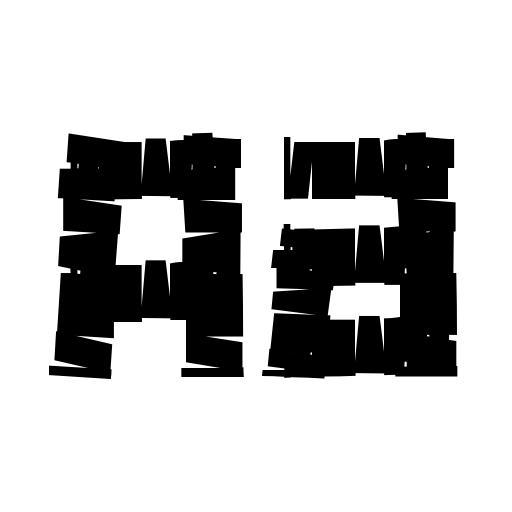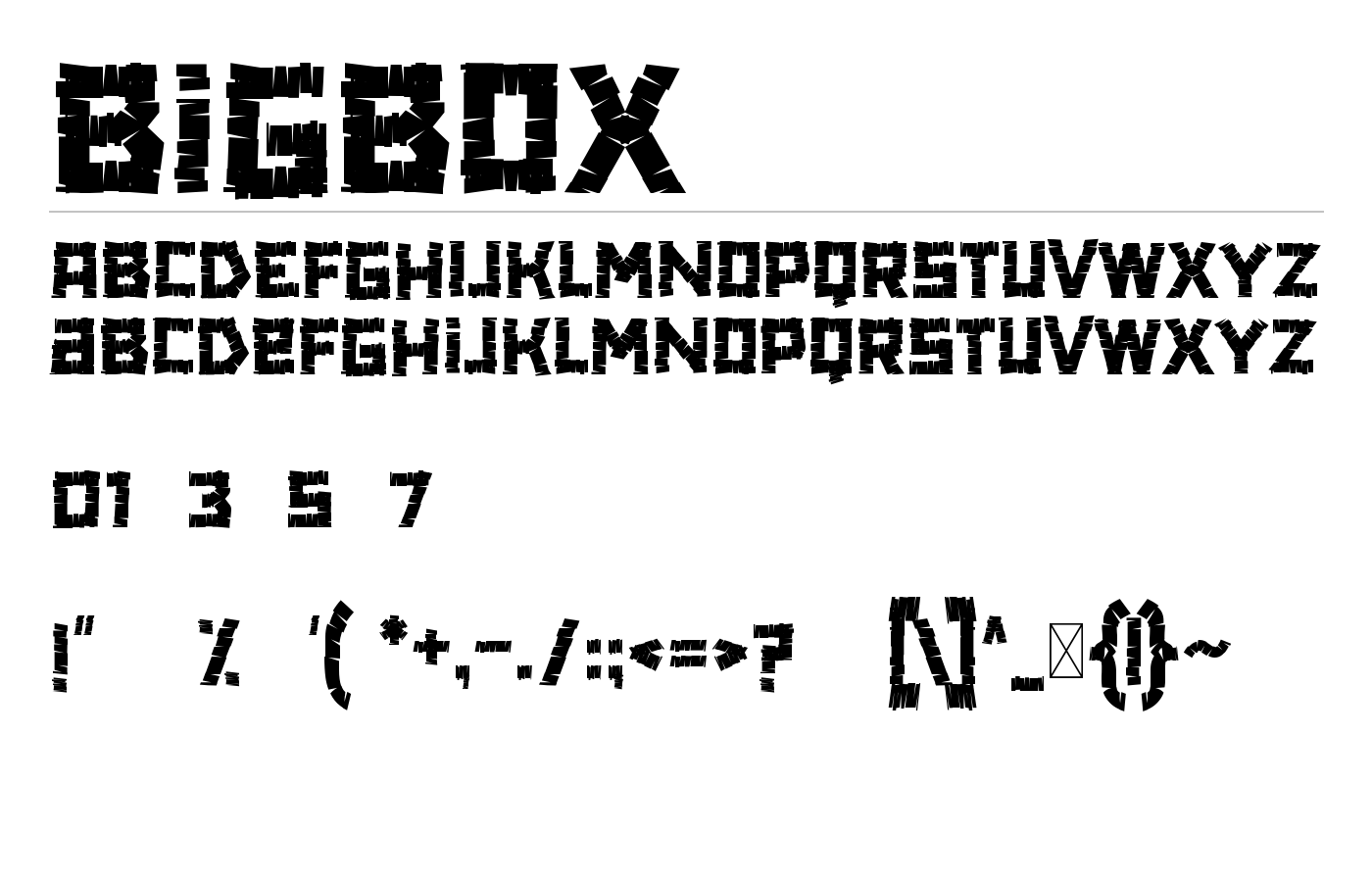
Bigbox is a bold, condensed sans serif font with a rugged, textured look resembling stacked or fractured blocks. Its uppercase design features a strong, edgy personality that feels modern and urban, making it ideal for striking headlines, posters, or branding that demands attention and a gritty, industrial vibe. This font works best for creative projects aiming to convey strength, energy, and boldness.
Bigbox Font
About Bigbox Font
| Font family | Bigbox Font |
| Designer | Anang F & Malik Wsn | Gassstype© Studio 2021 |